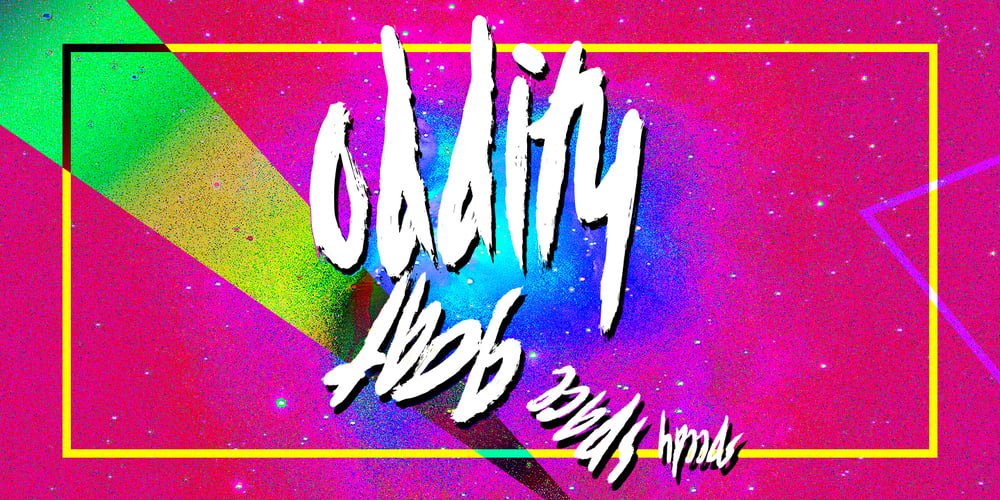
Speedy Space Goat Oddity Font Family was designed by Vladimir Tsagolov and published by LomoHiber. Speedy Space Goat Oddity contains 1 styles and family package options. Speedy Space Goat Oddity is the font with really interesting mood. My purpose was to transfer freedom, immediacy, and a bit of insanity with it. I’ve painted it with self-made paint and brush in a trippy environment. You can use Speedy Space Goat Oddity almost everywhere (not for body text). It’s great for posters, clothes design, package design, music album covers. Also, with the right approach, you can use it as horror font. Speedy Space Goat Oddity Features: Pant texture 2 ligatures for tt and ff 14 contextual alternates for most common double letters Carefully tuned kerning (preview above doesn’t show it for some reason) If you have some issues or questions, please let me know: lhfonts@gmail.comHope you’ll enjoy using Speedy Space Goat Oddity!